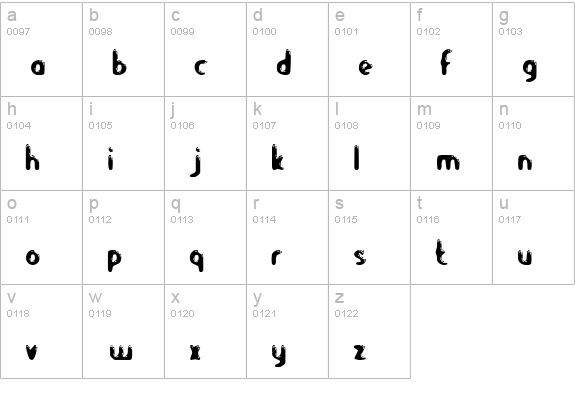
Introducing Let's Eat font, the perfect blend of style and appetite-inducing charm. Designed with a delectable combination of bold strokes and playful curves, Let's Eat is here to elevate your designs and leave your audience hungry for more. This mouthwatering font is not only visually pleasing but also comes with a deliciously sweet bonus - it's completely free! Yes, you heard it right, Let's Eat font can be freely downloaded at FontsMarket.com, making it accessible to all designers, food enthusiasts, and typography lovers alike. Whether you're creating a menu for a trendy restaurant, designing a food blog, or adding a touch of culinary flavor to your social media posts, Let's Eat font is the perfect ingredient to spice up your designs. Its versatility allows it to shine in a wide range of contexts, from elegant fine dining establishments to laid-back street food joints. The attention to detail in Let's Eat font is evident in every letter, as each character is meticulously crafted to capture the essence of delectable dishes. From the playful swirls of the lowercase letters to the bold, eye-catching capitals, Let's Eat font adds a touch of gastronomic delight to any project. With Let's Eat font, you have the freedom to experiment and unleash your creativity. Its wide range of weights and styles ensures that you can find the perfect combination to suit your design needs. Whether you want to make a bold statement with the heavy weight or add a touch of elegance with the light version, Let's Eat font has got you covered. So, what are you waiting for? Indulge your senses and download Let's Eat font for free at FontsMarket.com. Let your designs sizzle and leave a lasting impression on your audience with this delectable typeface. Bon appétit!